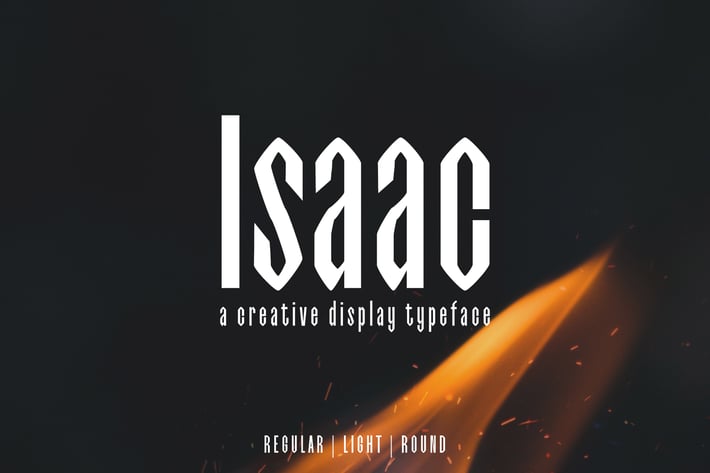
Isaac Display Font Family
Isaac is a creative display typeface with strong personality and wide choice of weights. It includes uppercase, lowercase, number, punctuation, symbols, with non-english characters. Isaac makes it perfect for logo, greeting cards, posters, branding, name card, stationary, design title, blog header, quotes, typography, headlines, packaging, presentations, titles, magazines, headings, web layouts, advertising, invitations, packaging design, books, and nearly any creative design.
- Font Weight: Regular, Italic, Light, Light Italic, Round and Round Italic